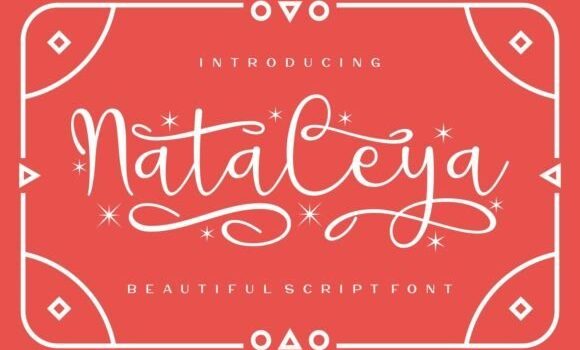
Nataleya Font – Free Download Introduction to Nataleya Font Nataleya is a dazzling script font. 📸 Preview Gallery 4 images 📌 Product Name Nataleya Font 👤 Author Rifki (7ntypes) 📂 Category Explore ⬇️ Download Nataleya Font FREE Free Download •